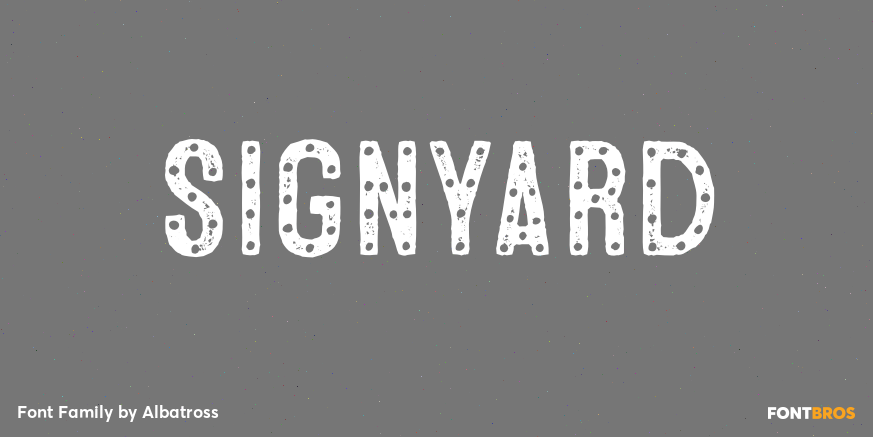
Signyard
About Signyard
Based on the popular Microbrew Family, Signyard is a display family trapped in time. Inspired by vintage restaurant and hotel signs, Signyard comes decked out in incandescent bulbs for a an authentic retro feel. The family has a unique vintage cinema…